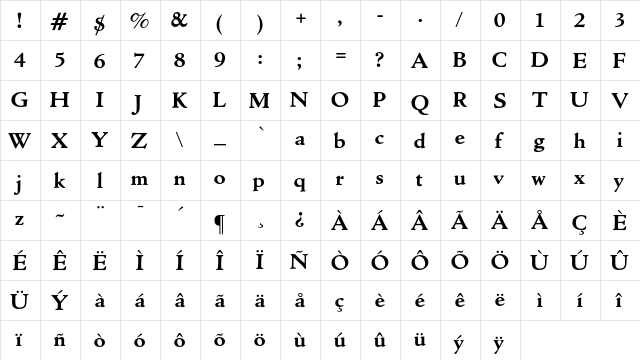
Cloister BoldRoman Font Preview
Cloister BoldRoman
Design Context for Cloister Typeface
Cloister offers clean, dependable letterforms without strong stylistic allegiance, making it a practical choice for designers who need flexibility. The heavy weight commands attention and anchors typographic hierarchies.